Those are not only web design trends that come and go annually. Web designers and businesses running their online sites, working on marketing campaigns, or creating branded materials should closely monitor font trends in 2025 to make their works look competitive and appealing. The following showcase will be handy if you are looking for the best fonts for design and creative marketing materials.
Rough and Textured Serif Fonts
One should be really creative to get their digital projects or print media noticed. Using fonts with worn or handmade textures is one of the top trends 2025. Using such typography adds a vintage or artisanal feel to the design where they are used.
Sagecity – Rough Serif Font
Sagecity is a vivid example of the rough and textured serif fonts that will be trendy in 2025. It is perfect for creative logo design, branding, posters, shopping bags, and other design projects. Available for download from the MonsterONE graphic design subscription service, the Sagecity font works perfectly well on Windows and Mac OS. It is easy to install and features uppercase and lowercase letters, ligatures, and an alternative style stylistic set.
Midnight Mirage – Rough Display Font
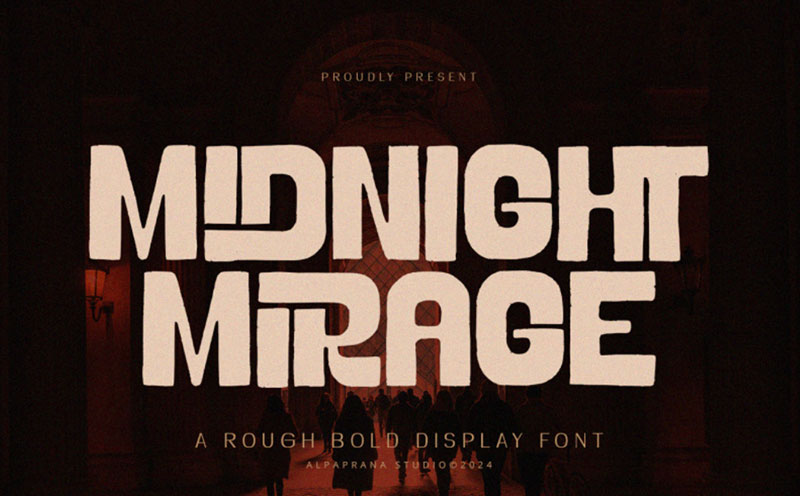
Midnight Mirage is another example of the best fonts for creating trendy designs in 2025. This is a rough display font with unique and classic feels. It is great for logotypes, posters, photography, and special events. The font adds a unique touch to the projects where it’s used. Created with readability in mind, it emphasizes the content where it’s being used.
Bold and Striking Fonts
Using bold and striking fonts is another trend for 2025 designs. By enhancing designs with attention-grabbing fonts with impressive weight and presence, businesses and creative professionals can enhance their branding style with striking typography used in headlines and logos.
Nova Nook – Bold Display Font
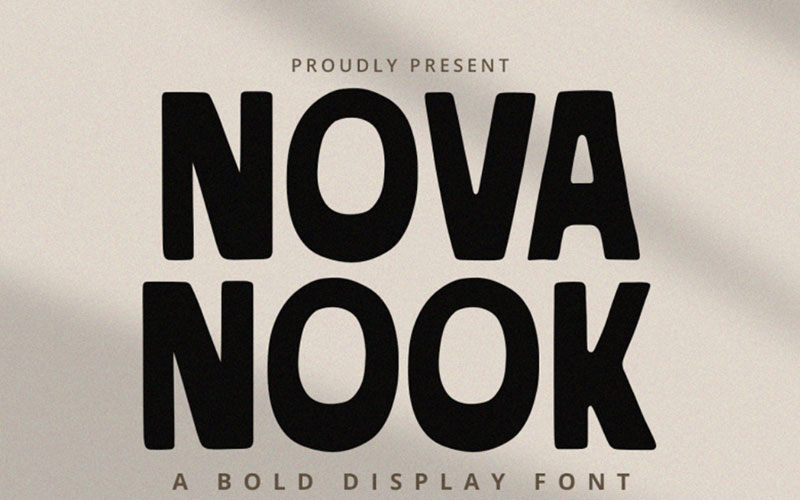
Nova Nook is one the trendiest bold sans serif fonts worth using in your designs in 2025. It adds a modern touch to the designs where it’s used. It adds a catching emphasis to headlines in online magazines and print media. Besides, the font looks great on boosters and banner ads.
Boniface – Display Serif Font
Here is one more example of bold and striking fonts we recommend using in your designs in 2025. The font is included in the collection of fonts in the MonsterONE subscription service and is available for free unlimited download. Boniface is a display serif font with elegant and modern feels. It looks great in digital and print media and seamlessly installs on Mac and Windows OS.
Neo-Vintage Serif Revival
A neo-vintage serif revival font is a modern typeface designed to mimic the aesthetic of classic serif fonts from a vintage era. In other words, such fonts use old design elements but update them with contemporary elements to fit current design trends well.
Wallsend – Display Serif Font
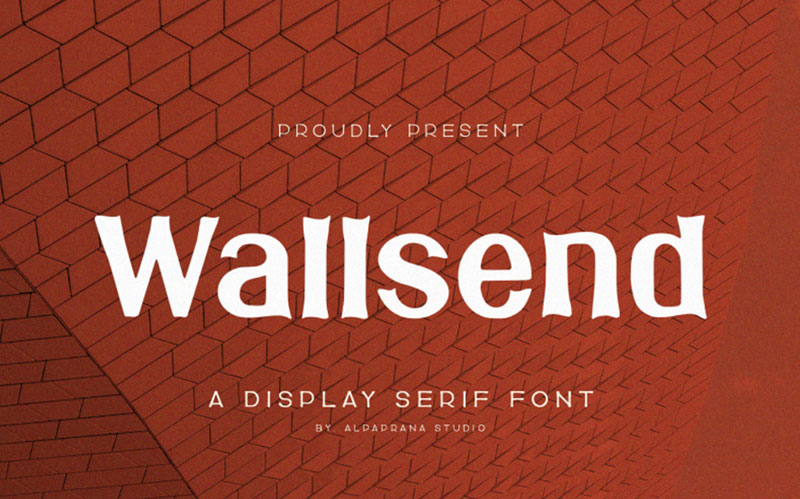
Wallsend is a great example of neo-vintage serif revival fonts. It features an elegant and modern feel, perfectly fitting many modern designs. The installation is simple and quick. You may feel free to work with the font on Mac and Windows OS alike.
Glimpse – Serif Display Font
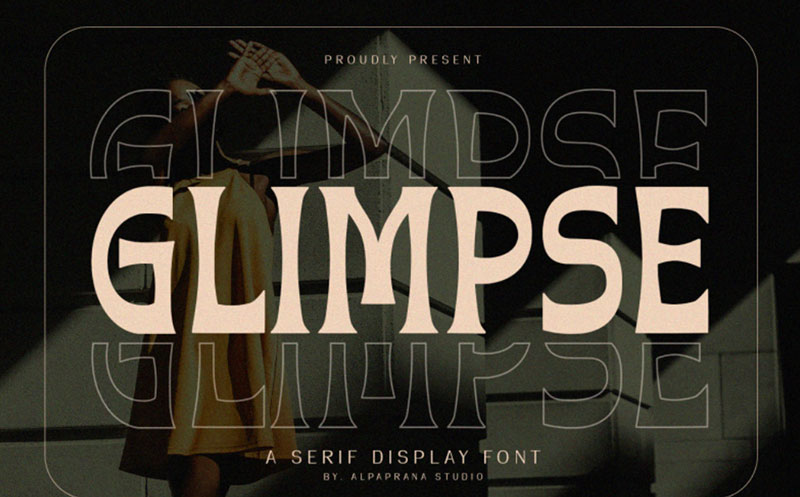
Glimpse is a serif font with elegant and modern feels. It perfectly fits web designs and branded materials for creative artistic projects. The font package includes uppercase and lowercase letters, numerals, accents, punctuations, and more. It installs in seconds and provides a seamless text editing experience.
Minimalist Sans-Serif Fonts
Minimalism remains one of the leading web design trends for 2025. Besides, this is one of the major font trends in 2025. Featuring unique character shapes, minimalist sans-serif fonts let texts stand out in corporate branding, tech, and creative projects.
Kejora – Unique Sans Serif Font
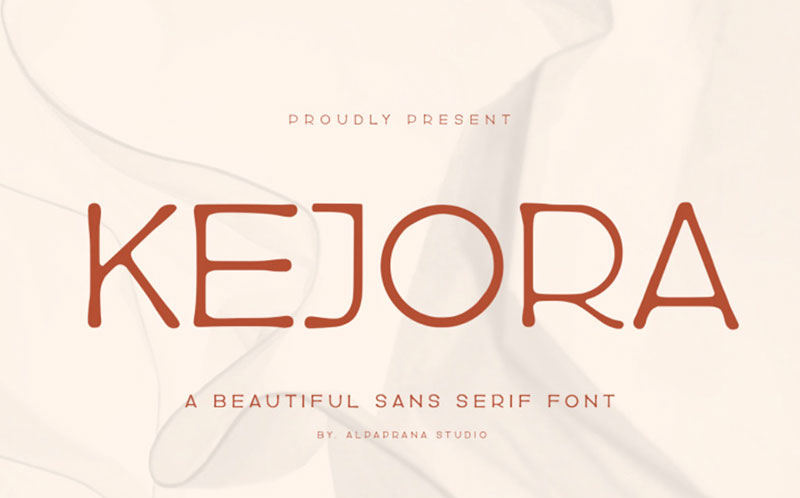
If you want a font that will make your designs look special, consider using Kejora. This is a unique sans serif font with elegant and modern feels. Besides being a great choice for web design, the font perfectly fits t-shirts, book covers, photography, and special events designs. Logos and brand elements will have a neat style with the Kejora font featured in their designs.
Graffiti-Inspired and Brush Styles
Graffiti-styled fonts are trendy again. The typography with dynamic, hand-drawn brushstrokes or graffiti-style designs is perfect for edgy, urban, and youthful branding.
Skatecato – Graffiti Brush Font
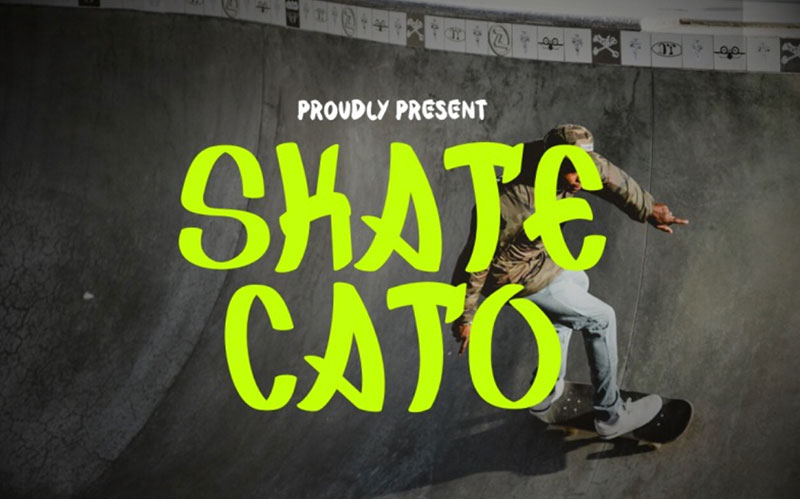
Skatecato is one of the best graffiti fonts available for download from the MonsterONE subscription service. This elegant hand-written font will help you emphasize your most creative ideas. It represents a unique blend of ligatures and a little swirly embedding. T features multilingual support and looks great in any language.
Playful and Whimsical Serif Designs
Projects that want to stand out and make a statement with a touch of quirkiness may consider using playful and whimsical serif designs. These serif fonts with unexpected curves, angles, or details add whimsy to packaging, logos, and creative materials.